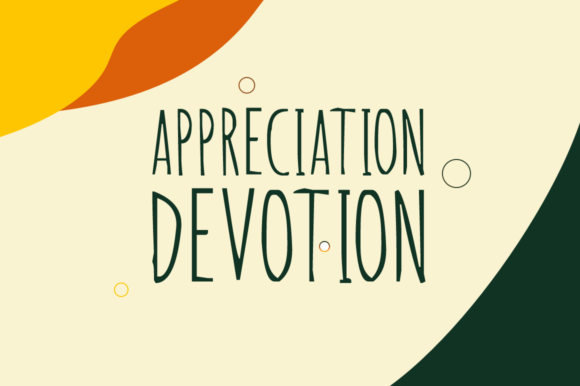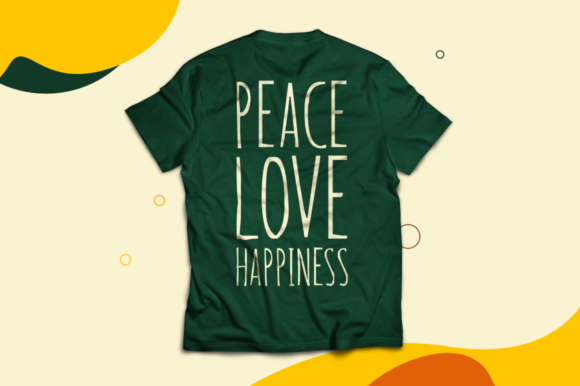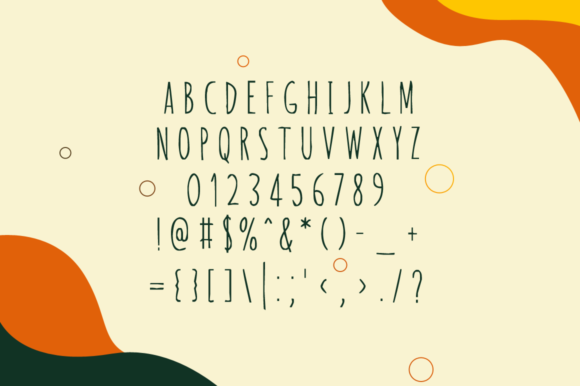
Introduction to Our Grasp Font
Have you ever been working on a creative project, pouring your heart and soul into the design, only to feel like something’s missing? That’s when you stumble upon the perfect design resource – a font that elevates your entire project to the next level. For designers, finding that one special font can be a game-changer. It’s the difference between a good design and an exceptional one.
Our Grasp Font is one of those rare finds that can take your design projects to new heights. With its charming and elegant style, this stunning display font is a must-have for any designer. Its smooth baseline, thin lines, gorgeous glyphs, and stunning alternates make it the perfect choice for branding, headings, wedding designs, invitations, signatures, logos, labels, and much more.
Key Features of Our Grasp Font
- Designed with a unique aesthetic, Our Grasp Font is perfect for adding a touch of sophistication to any creative project.
- Includes a range of characters, including uppercase and lowercase letters, numbers, and punctuation marks, for comprehensive use.
Honest Review: Our Grasp Font
I recently stumbled upon Our Grasp Font, a free download that caught my attention as a potential design resource for my next creative project. With a transparent background, this font stands out from the crowd.
- ✨ High-quality design that exudes professionalism
- ✨ Suitable for various creative projects, including branding, packaging, and digital designs
- ⚠️ Limited character set, which might restrict its use in more extensive projects
Overall, I’m impressed with Our Grasp Font’s potential, but it ultimately depends on the specific needs of your project. If you’re looking for a high-quality, free font with a transparent background for a personal or non-commercial project, Our Grasp Font is definitely worth considering.
Common Use Cases for Our Grasp Font
Our Grasp Font is ideal for a variety of creative projects, including graphic design, branding, and digital marketing. It’s also perfect for creating invitations, posters, and other visual materials that require a high-quality font.